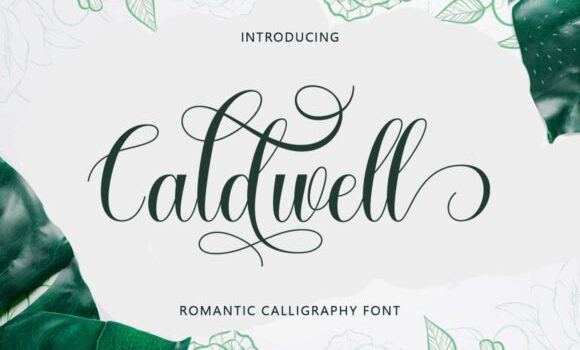
caldwell
Caldwell Font - Featured Image
Caldwell Font – Free Download Introduction to Caldwell Font Caldwell is a gorgeous script font that’s perfect for adding that extra level of elegance to your next crafting project. 📸 Preview Gallery 4 images 📌 Product Name Caldwell Font 👤